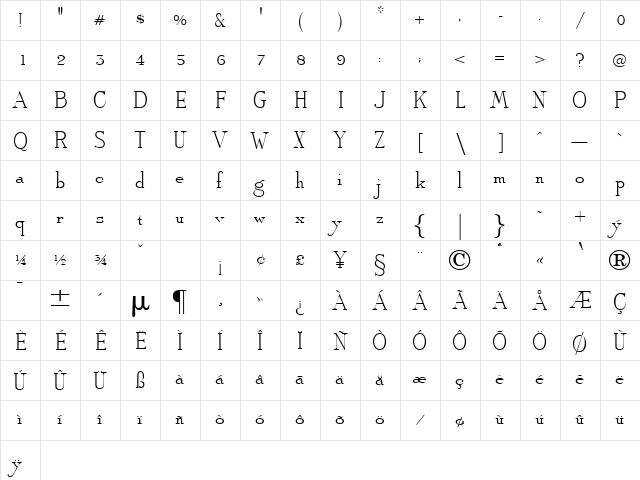
Arbiter DB Regular
Design Context for Arbiter DB Typeface
Arbiter DB offers clean, dependable letterforms without strong stylistic allegiance, making it a practical choice for designers who need flexibility.